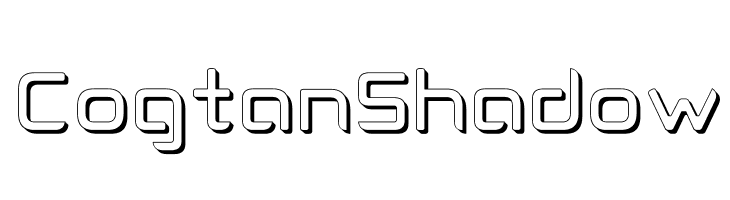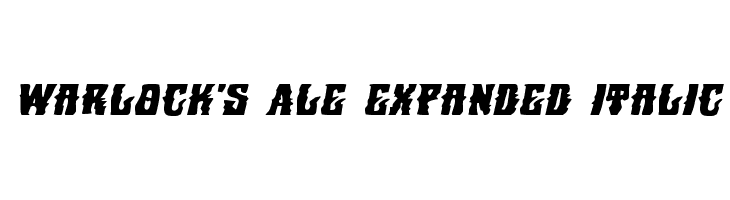
A modern, geometric font with a three-dimensional shadow effect.
A modern, geometric font with consistent stroke widths and a clean appearance.
A bold, 3D italic font with a playful and dynamic style.
A bold, geometric font with a modern, industrial style.
A modern and elegant font with clean lines and subtle contrast.
Hand-drawn floral doodle font with whimsical, varied flower illustrations.
A whimsical, decorative font with characters resembling abstract creatures.
A modern, elegant font with tall, slender characters and artistic flair.
A bold, geometric font with sharp angles and a modern, edgy style.